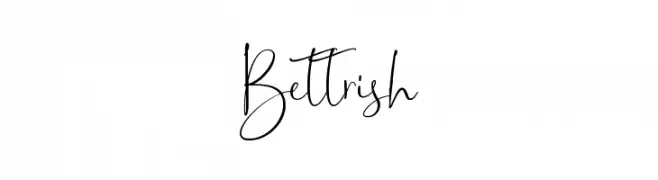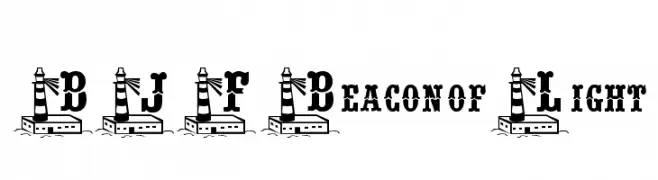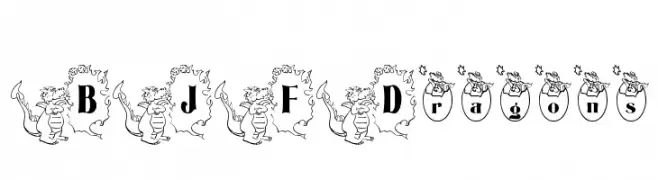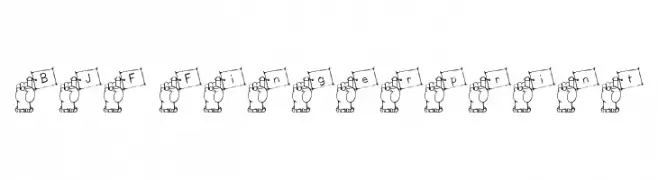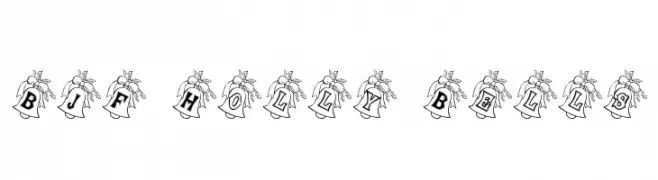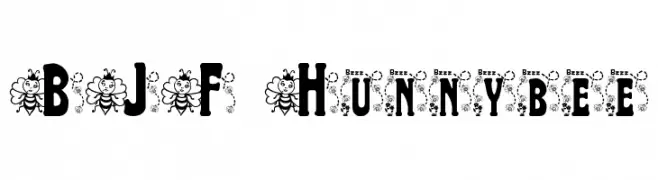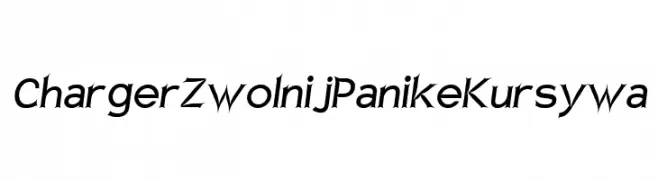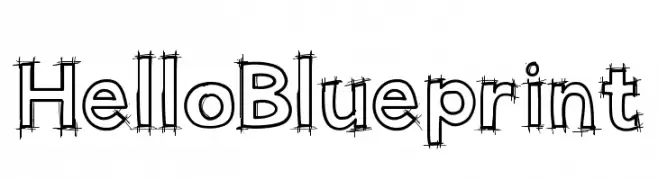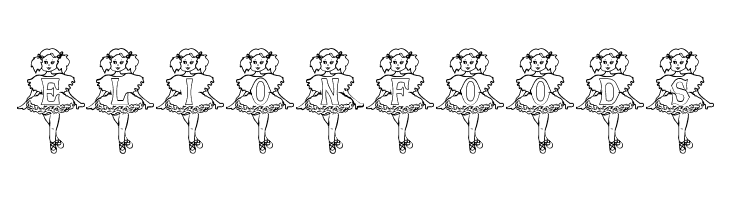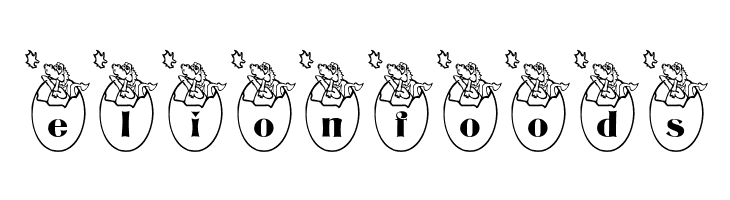
A bold, angular serif font with a modern, edgy style.
( Jen Jones - www.jenjonesfonts.com )
A blueprint-inspired font with sketch-like details and bold outlines.
( blue studio09 )
A delicate, flowing script font with an elegant, handwritten style.
( Blue Jay Font Studio - katzfonts.50megs.com/bj1.html )
A decorative font with characters embedded in ballerina illustrations.
( Blue Jay Font Studio - katzfonts.50megs.com/bj1.html )
A decorative font with lighthouse-themed characters, ideal for nautical designs.
( Blue Jay Font Studio - katzfonts.50megs.com/bj1.html )
A decorative font with characters encased in festive wreaths, perfect for holiday themes.
( Blue Jay Font Studio - katzfonts.50megs.com/bj1.html )
A playful, dragon-themed decorative font perfect for fantasy projects.
( Blue Jay Font Studio - katzfonts.50megs.com/bj1.html )
A playful font with characters held by a hand, offering a unique and artistic style.
( Blue Jay Font Studio - katzfonts.50megs.com/bj1.html )
A festive decorative font featuring characters within holly-adorned bells.
( Blue Jay Font Studio - katzfonts.50megs.com/bj1.html )
A whimsical font with bee and floral embellishments on bold letters.